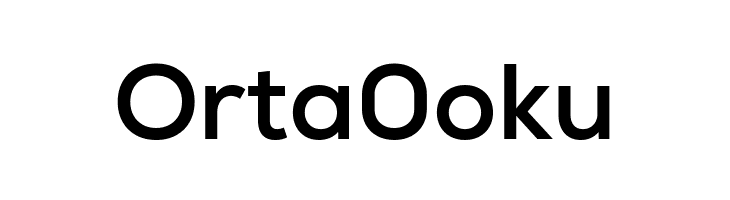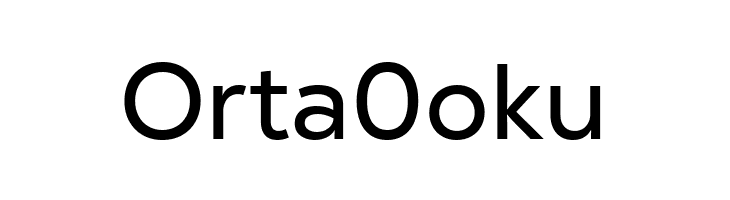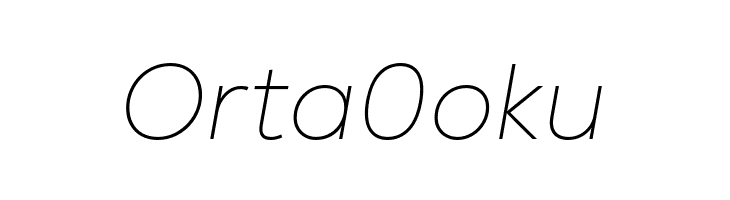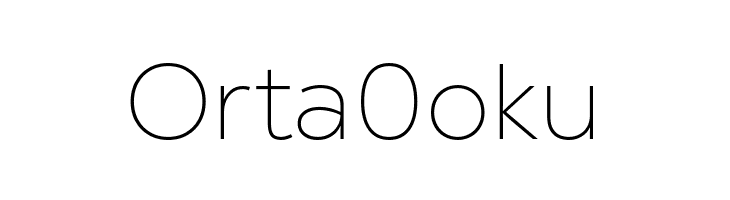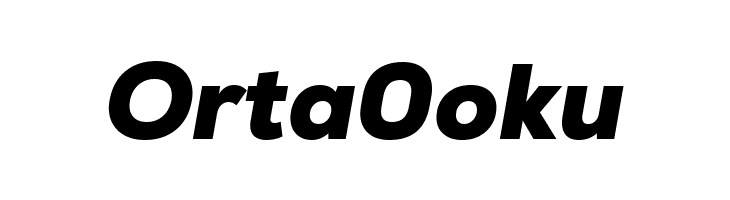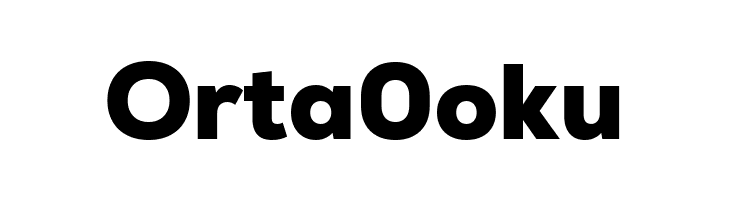
A modern, light, italic sans-serif font with a sleek and slightly condensed design.
A modern, geometric sans-serif font with clean lines and excellent legibility.
A modern, italic sans-serif font with clean lines and excellent readability.
A modern, geometric sans-serif font with thin, uniform strokes.
A sleek, modern, and thin italic font with elegant lines and geometric shapes.
A bold, modern font with clean, geometric lines and excellent readability.
A bold, italic sans-serif font with a modern and dynamic style.
A bold, modern sans-serif font with clean lines and excellent legibility.
A modern, bold, and italicized font with a sleek and dynamic design.
A modern, geometric sans-serif font with uniform strokes and a clean appearance.